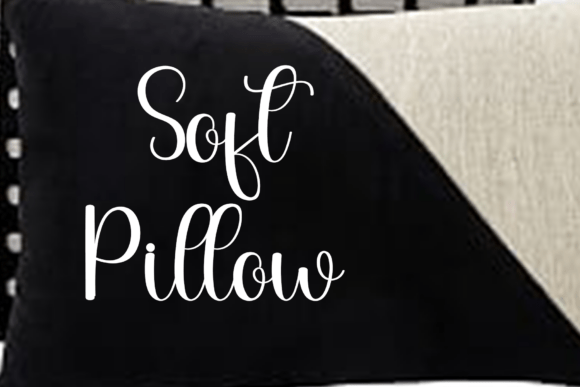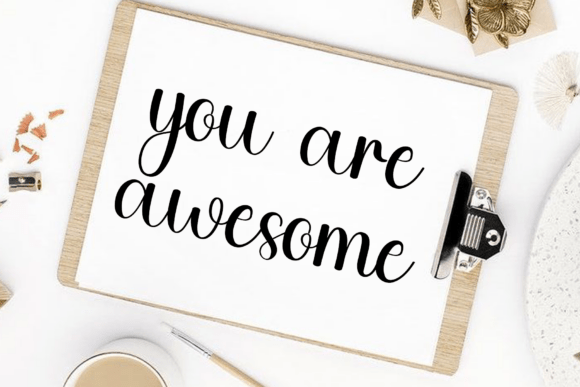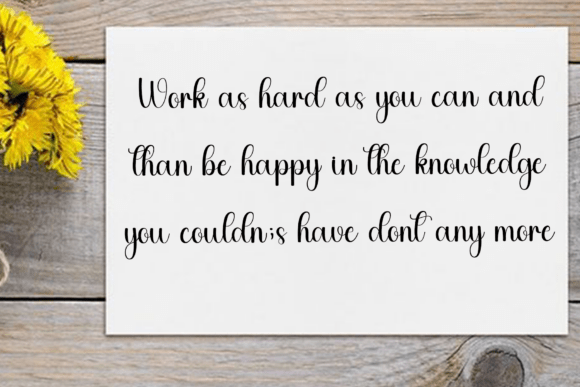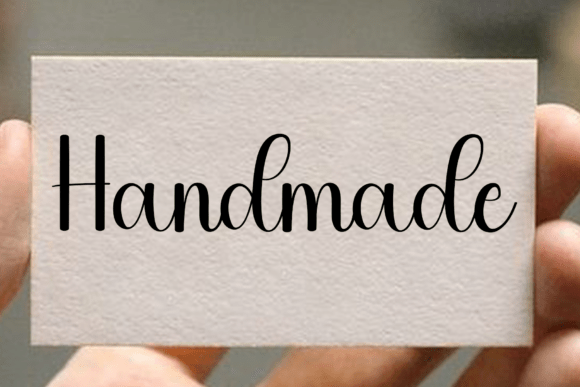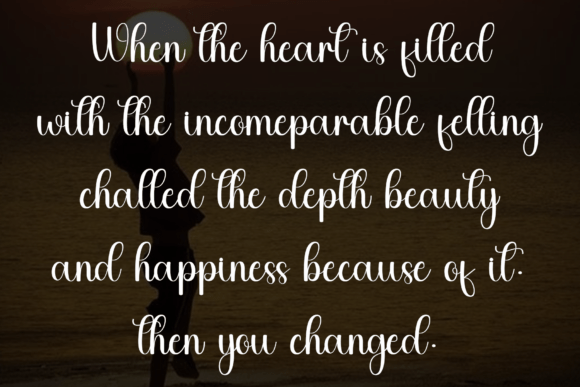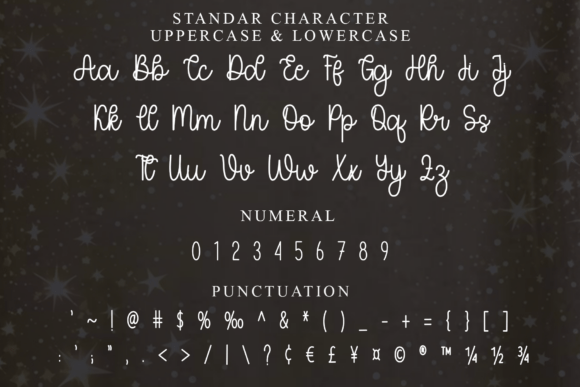
Introducing Briliany Font: The Ultimate Holiday Typeface
Are you looking for a font that captures the essence of the holiday season? Look no further than Briliany Font, a festive and merry typeface that’s perfect for adding a touch of magic to your designs. With its decorative elements and whimsical flair, Briliany Font is sure to bring a cheerful and nostalgic ambiance to your words.
A Festive Font for Holiday Projects
Briliany Font is specifically designed to evoke the spirit of the holiday season. Its playful and decorative elements make it perfect for a variety of holiday-themed projects, including greeting cards, gift tags, and festive posters. Whether you’re a designer, crafter, or DIY enthusiast, Briliany Font is the perfect addition to your typography collection.
What Makes Briliany Font Special?
So, what sets Briliany Font apart from other typefaces? Here are just a few features that make it a standout:
• Decorative Elements: Briliany Font features a range of decorative elements, including intricate swirls and flourishes, that add a touch of whimsy and magic to your designs.
• Whimsical Flair: With its playful and cursive style, Briliany Font brings a sense of nostalgia and wonder to your typography.
• PUA Encoding: Briliany Font is PUA encoded, which means you can access all of the amazing glyphs and ligatures with ease. This makes it simple to create beautiful and intricate designs.
Briliany Font is perfect for designers and crafters who want to add a touch of holiday cheer to their projects. Here are just a few ways you can use Briliany Font:
• Greeting Cards: Create beautiful and festive greeting cards for friends and family.
• Gift Tags: Add a personal touch to your gifts with custom gift tags featuring Briliany Font.
• Holiday Posters: Create eye-catching holiday posters and decorations with Briliany Font.
• DIY Projects: Use Briliany Font to add a touch of magic to your DIY holiday projects, such as scrapbooking and paper crafting.
Tips for Using Briliany Font
Here are a few tips for getting the most out of Briliany Font:
• Experiment with Sizes: Try using Briliany Font in different sizes to create visual interest and hierarchy in your designs.
• Combine with Other Fonts: Pair Briliany Font with other fonts to create a unique and eye-catching typography combination.
• Use Decorative Elements: Take advantage of Briliany Font’s decorative elements, such as swirls and flourishes, to add a touch of whimsy to your designs.